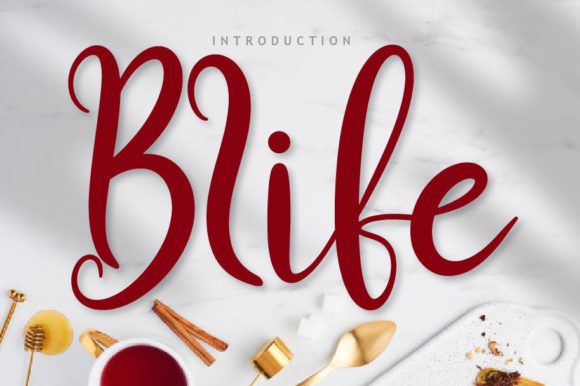
The Blife Font: A Timeless Handwritten Treasure for Designers
Have you ever been in the middle of a design project, and suddenly, you’re stuck on finding the perfect font? I recall a particularly frustrating moment when a client requested a logo that was both modern and vintage. I scoured the internet for hours, but nothing seemed quite right. That’s when I stumbled upon the Blife font. It was love at first sight! ✨
Blife is a lovely and timeless handwritten font, perfect for creating eye-catching logos, branding, and quotes. Every letter has a unique and beautiful touch, which will make your design come alive! In this article, I’ll share my experience with Blife, its features, and how to make the most of it in various design platforms.
An Honest Review of Blife Font
What I Love About Blife Font
- ✨ Unique and beautiful handwritten style
- ✅ Perfect for logos, branding, and quotes
- ✅ Extensive OpenType features, including glyphs and stylistic alternates
While Blife is an amazing font, there are a few things to keep in mind: ⚠️ It may not be the best choice for body text, as it’s designed for display purposes. 🤔 Some users may find the font a bit too ornate for certain projects.
- Experiment with OpenType features, such as glyphs and stylistic alternates, to add visual interest
The Story Behind Blife Font
Blife font was designed with love and care by a talented type designer. The goal was to create a font that would bring a touch of warmth and personality to designs. Inspired by classic handwritten fonts, Blife was crafted to be both timeless and versatile.
Q: What is the Blife font best used for?
A: Blife font is perfect for creating eye-catching logos, branding, and quotes. It’s ideal for designs that require a personal touch.
Q: Is Blife font suitable for body text?
A: While Blife is a beautiful font, it’s designed for display purposes. For body text, you may want to choose a font with better legibility at small sizes.